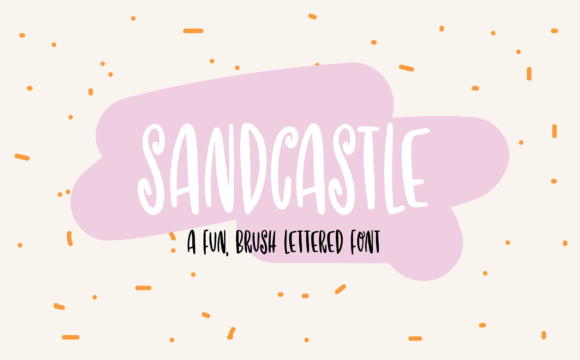
**Sandcastle Font: Where Whimsy and Charm Intertwine**
In a world of digital monotony, where uniformity reigns supreme, Sandcastle Font emerges as a breath of fresh air, an oasis of creativity beckoning you to explore its enchanting realm. This script font, meticulously crafted by the talented hands at blushfontco, is a symphony of charm, a visual masterpiece that will elevate your designs to new heights of elegance and allure.
Sandcastle Font is not just a collection of characters; it's a gateway to a world of boundless imagination, a font that breathes life into your creative visions. Whether you're a seasoned designer or just starting your artistic journey, Sandcastle Font will be your steadfast companion, guiding you through the uncharted territories of creativity and innovation.
With its playful, hand-drawn strokes and an incredibly friendly vibe, Sandcastle Font is the perfect choice for those seeking to add a touch of whimsy and delight to their designs. Its versatility knows no bounds, seamlessly adapting to a myriad of projects, from heartfelt framed quotes that adorn your living room walls to captivating logos that leave an indelible mark on your audience's minds.
**A Font for Every Occasion: Your Creativity Unleashed**
With Sandcastle Font at your disposal, the possibilities are endless. Let your imagination soar, and transform your creative ideas into tangible works of art. Whether you're designing eye-catching social media posts that demand attention or crafting personalized invitations that exude warmth and charm, Sandcastle Font will be your trusty ally, helping you create designs that resonate with your audience and leave a lasting impression.
The font's impeccable craftsmanship shines through in every letterform, every curve and stroke meticulously designed to evoke a sense of joy and wonder. Sandcastle Font is more than just a font; it's a vessel for your creativity, a catalyst that ignites your imagination and propels your designs to new heights of excellence.
**Embrace the Magic of Sandcastle Font Today**